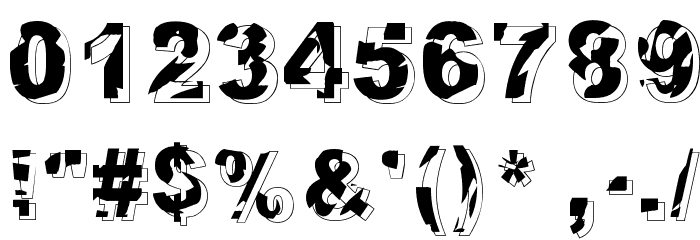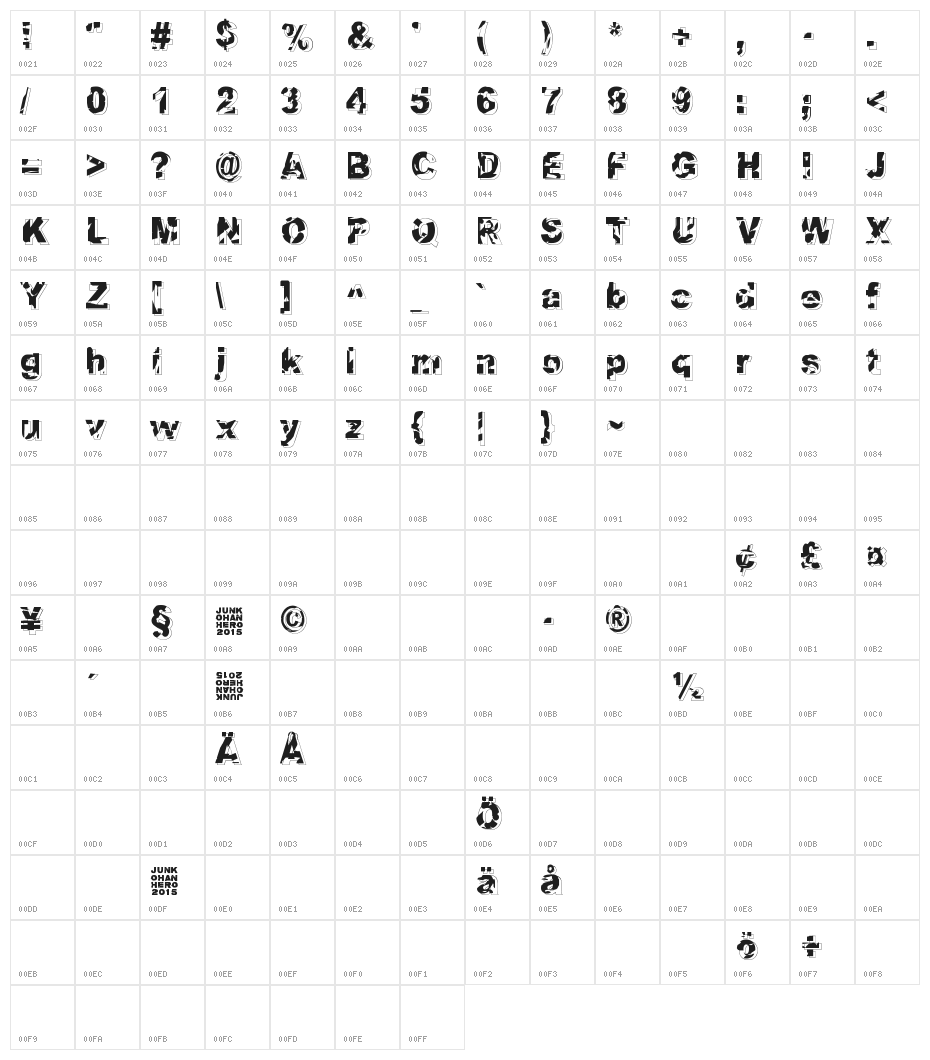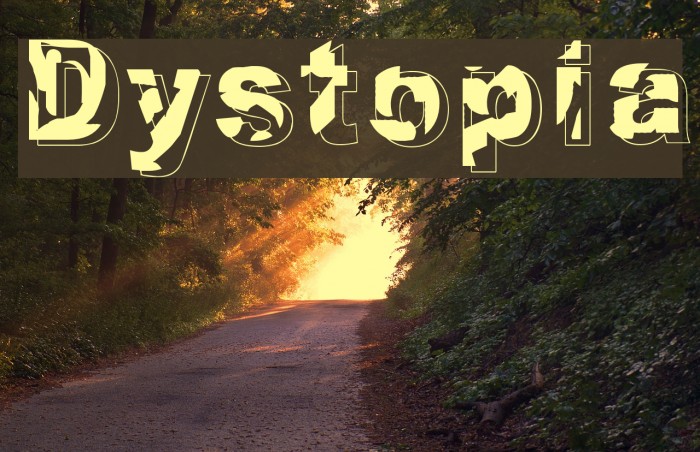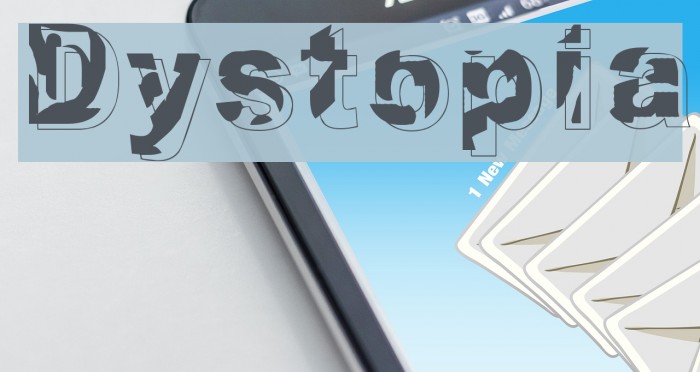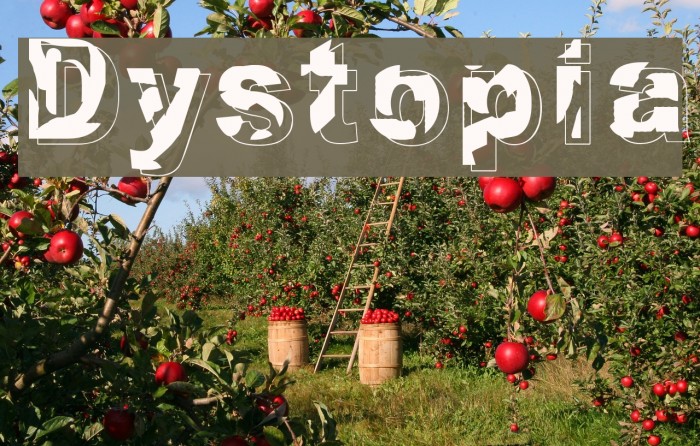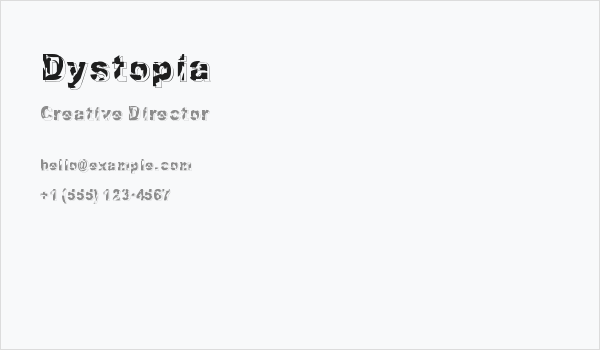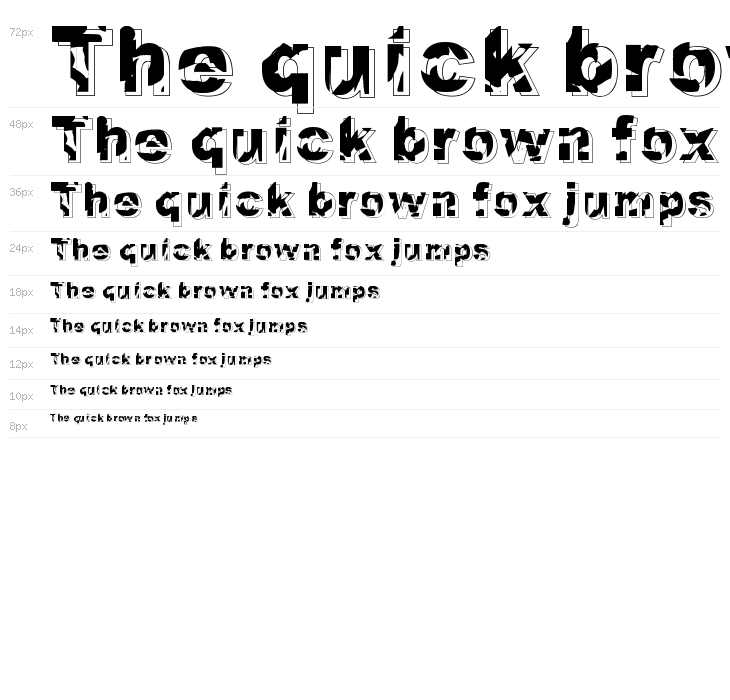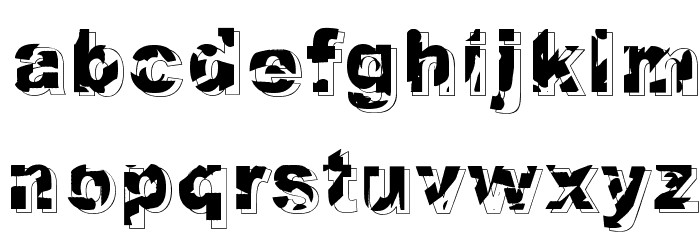
Dystopia Font
Dystopia Description
This font features a bold and striking design with a distressed, fragmented appearance. The characters are heavily stylized, incorporating a mix of solid and hollow sections that create a dynamic, chaotic look. The uppercase and lowercase letters maintain a consistent style, with sharp edges and a sense of movement. Numbers and special characters follow the same aesthetic, ensuring a cohesive visual impact. The font's unique design makes it ideal for projects that require a strong, unconventional statement.
| Overall Style | Modern, Distressed |
| Proposed Projects | Ideal for album covers, movie posters, video game titles, and edgy branding projects. |